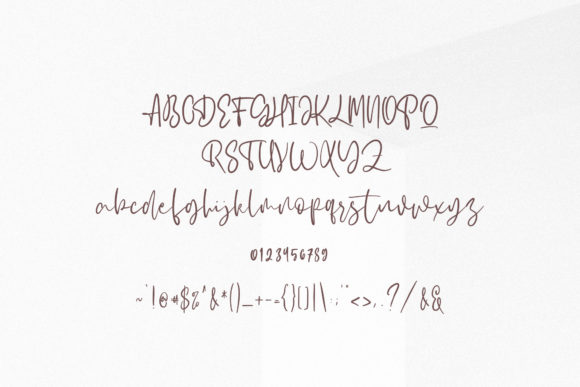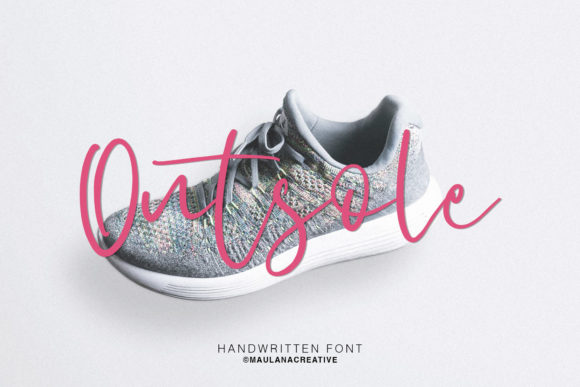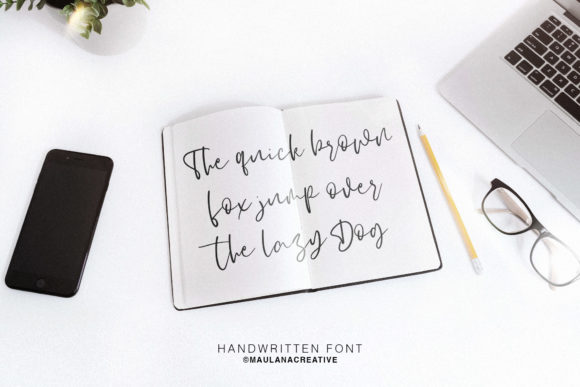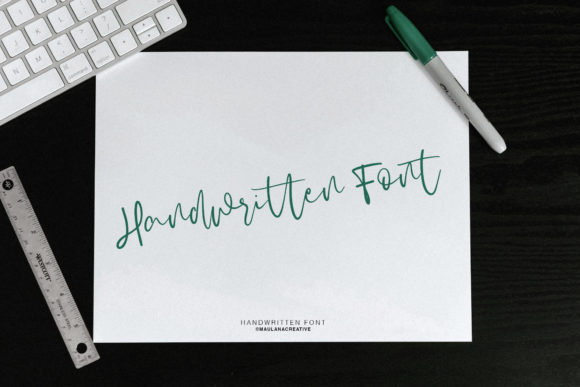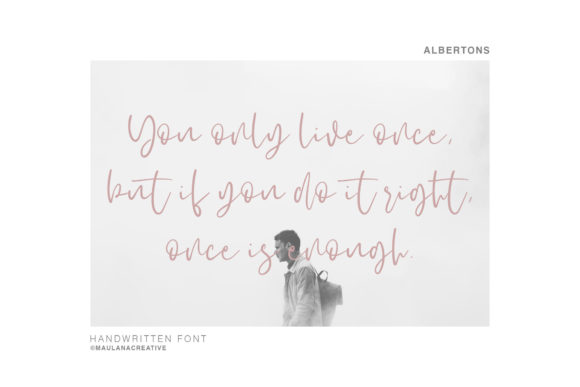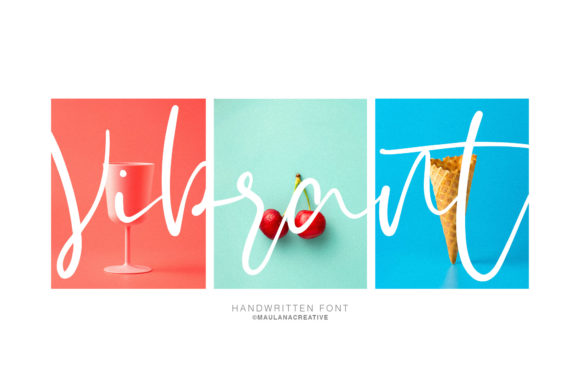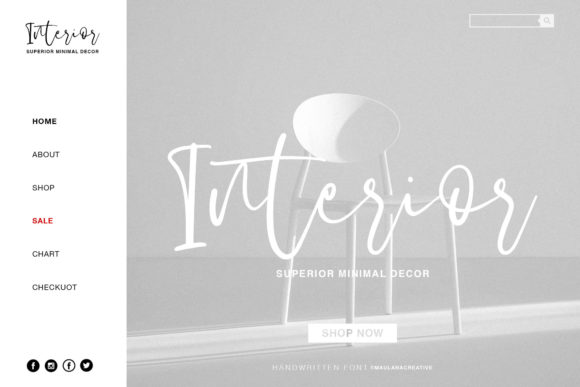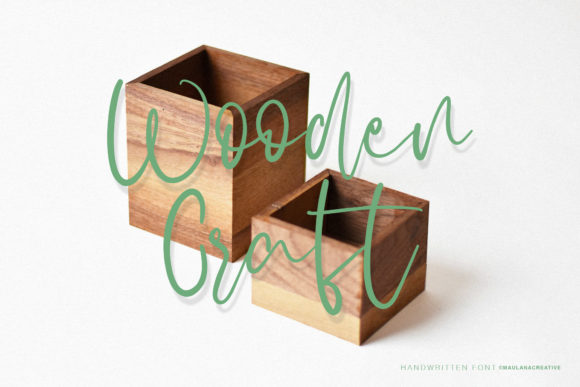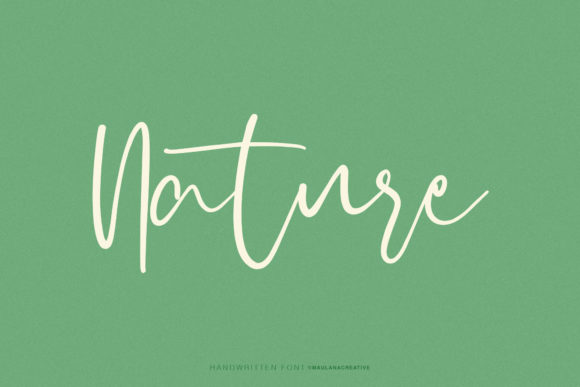
HomeScript FontsAlbertons Script Font Script Fonts Albertons Script Font FacebookXPinterestWhatsApp Albertons Script Font Poster 2 Albertons Script Font Poster 3 Albertons Script Font Poster 4 Albertons Script Font Poster 5 Albertons Script Font Poster 6 Albertons Script Font Poster 7 Albertons Script Font Poster 8 Albertons Script Font Poster 9 Albertons Script Font Poster 10 About Albertons Script Font Albertons delivers a bouncy baseline and smooth curves, making it an ideal crafting font! DOWNLOAD NOW People also explored Baby Bee Font Stay Wonderlight Font Datons Font Aimerva Font Baby Jorge Font Rustic Love Tattoo Font Glettaly Font Something Font Blue Phantom Font 337 0 TagsAlbertons Script Font Previous articleSaturday FontNext articleGalinta Font LEAVE A REPLY Cancel reply Comment: Please enter your comment! Name:* Please enter your name here Email:* You have entered an incorrect email address! Please enter your email address here Website: Save my name, email, and website in this browser for the next time I comment. Personal Use Free BD RatterBit Personal Use Free Read more about this font Engebrechtre Personal Use Free Read more about this font Choco Shake Font Personal Use Free Read more about this font Blue Highway Personal Use Free Read more about this font BLOG Where to Buy American Fonts Online in 2024 Where to Buy American Fonts Online: The Ultimate Guide for 2024 Looking for the perfect American font to elevate your design projects? You're in the... The 10 Best Handwriting Fonts to Add Personality to Your Designs Best Fonts for YouTube Videos: Make Your Thumbnails Stand Out Exploring Font Trends